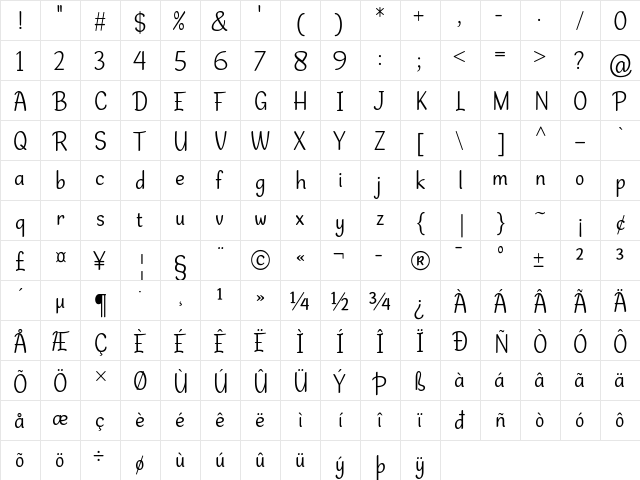
Dehasta Momentos Regular
| Foundry | 7NTypes |
| Designer | Andrian Dehasta, Situjuh Nazara |
Design Context for Dehasta Momentos Typeface
Dehasta Momentos takes a measured approach to typography — its balanced proportions and neutral character make it a reliable workhorse for both digital and print work.